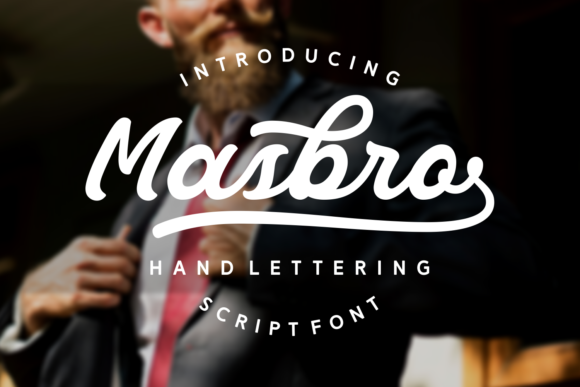
Discover the Beauty of Masbro Font
When it comes to typography, the right font can make all the difference. Masbro is a hand-lettered script font that brings a unique blend of elegance and energy to any design. Its flowing lines and expressive strokes make it ideal for projects that require a personal touch or a bold statement. Whether you're designing a logo, creating social media content, or working on a branding project, Masbro offers a versatile and visually appealing option.
What Makes Masbro Stand Out
Masbro is more than just a font—it's a style that captures the essence of handwritten artistry. The font features beautiful swashes, which are the decorative flourishes that add a sense of movement and grace. These swashes give each letter a dynamic feel, making Masbro perfect for designs that need a bit of flair. The letters themselves are striking, with a balance between simplicity and complexity that ensures readability without sacrificing visual interest.
One of the key strengths of Masbro is its adaptability. It works well in both digital and print formats, and its clean structure allows it to maintain clarity at various sizes. This makes it suitable for everything from large-scale banners to small text elements like captions or labels. The font also has a natural flow that mimics the way someone might write by hand, giving it an authentic and approachable quality.
Key Characteristics of Masbro
Practical Applications of Masbro
The versatility of Masbro means it can be used in a variety of settings. For professionals, it's a great choice for branding materials such as logos, business cards, and marketing collateral. Its elegant appearance helps convey a sense of sophistication and creativity, making it ideal for industries like fashion, beauty, and lifestyle.
Entrepreneurs and freelancers often use Masbro for social media posts, website headers, and promotional content. Its eye-catching style draws attention and adds personality to digital content. Educators and bloggers may find it useful for creating engaging visuals for presentations, infographics, or blog titles. The font’s ability to blend form and function makes it a valuable tool in many creative workflows.
In commercial environments, Masbro can be used for packaging design, signage, and advertising. Its strong visual presence helps brands stand out in a crowded market. For personal projects, it’s perfect for invitations, greeting cards, and custom artwork. The font’s expressive nature allows users to communicate emotions and ideas in a more artistic way.
Benefits of Using Masbro
1. Enhanced Visual Appeal: Masbro adds a unique aesthetic that can elevate the overall look of any design.
2. Improved Brand Identity: The font’s distinct style helps create a memorable and cohesive brand image.
3. Increased Engagement: Its dynamic appearance can capture attention and encourage interaction with content.
4. Flexibility in Use: Masbro adapts to different formats and contexts, making it a reliable choice for diverse projects.
Considerations When Using Masbro
While Masbro is highly versatile, it's important to consider how it will be used. In some cases, the font’s decorative elements may reduce readability, especially in long blocks of text. For this reason, it’s best suited for short phrases, headlines, or decorative elements rather than body copy.
Real-World Examples of Masbro in Action
Many businesses have successfully incorporated Masbro into their branding strategies. A boutique clothing store might use it for a logo to convey a sense of craftsmanship and individuality. A digital marketing agency could apply it to a website header to create a modern and professional look. Even in educational settings, teachers might use Masbro for lesson plans or classroom posters to make the material more visually engaging.
For digital creators, Masbro can be a game-changer. Instagram influencers often use it in post captions or story overlays to add a personal and artistic flair. Graphic designers may integrate it into social media templates or email newsletters to create a more dynamic visual experience. The font’s adaptability ensures that it can be used in a wide range of creative contexts without losing its impact.